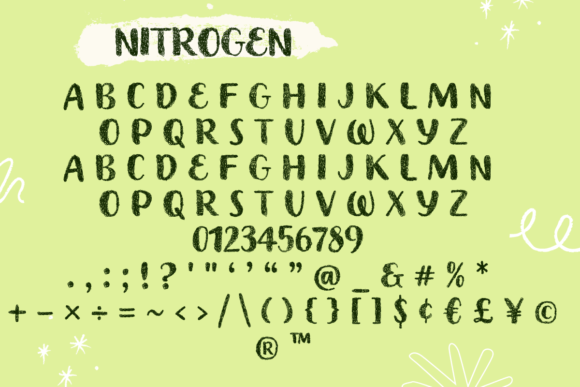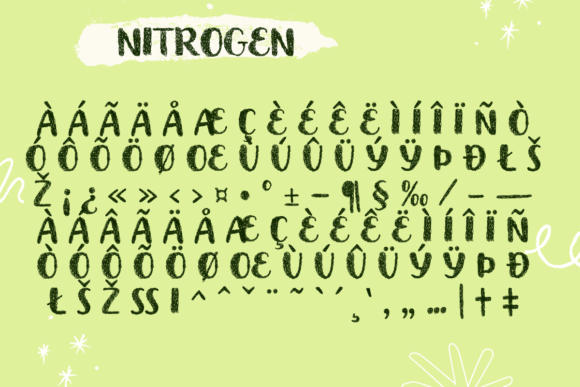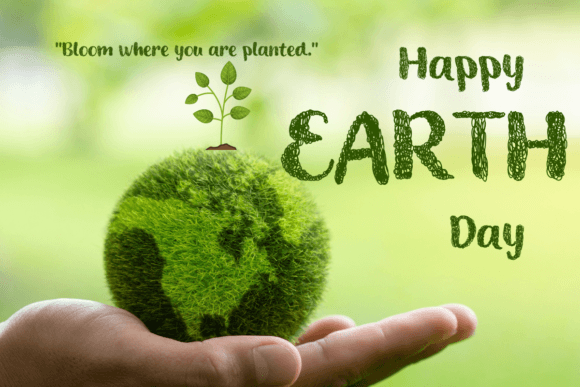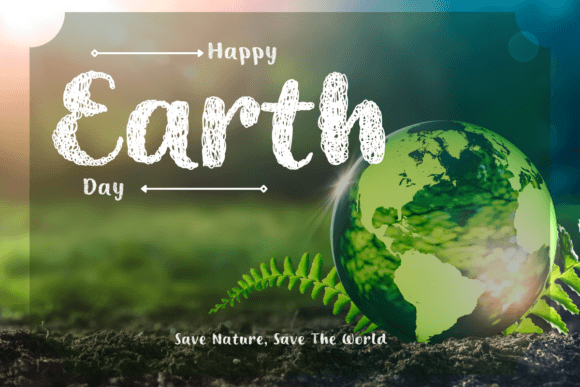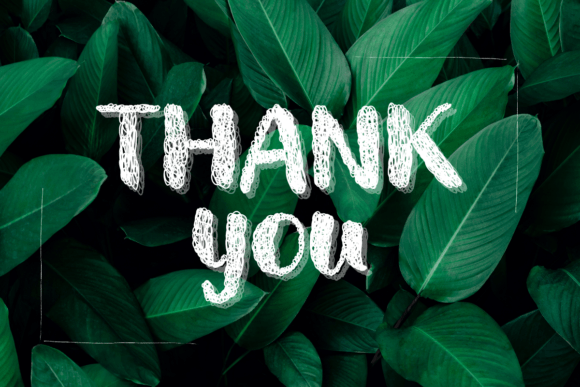
Introduction to Nitrogen Font
Have you ever been brainstorming a creative project and suddenly, the perfect font pops into your mind? That’s exactly what happened to me when I stumbled upon the adorable Nitrogen Font. This cute and friendly handwritten display font is like a breath of fresh air for designers looking to add a personal touch to their work. Whether you’re writing a diary entry, designing a greeting card, or creating a social media post, the Nitrogen Font is sure to bring a smile to your face.
Honest Review: Nitrogen Font
The Nitrogen Font offers a transparent background, making it ideal for designs that require a clean and minimalist look. I particularly like how it can be easily customized to suit different design styles, from modern to vintage.
- ⚠️ Limited character set, which may not be suitable for lengthy text-based projects
Overall, I’m impressed with the Nitrogen Font. While it has some limitations, its high-quality design and versatility make it a valuable addition to any designer’s resource library. I’d definitely recommend it for designers working on creative projects that require a clean and modern look.